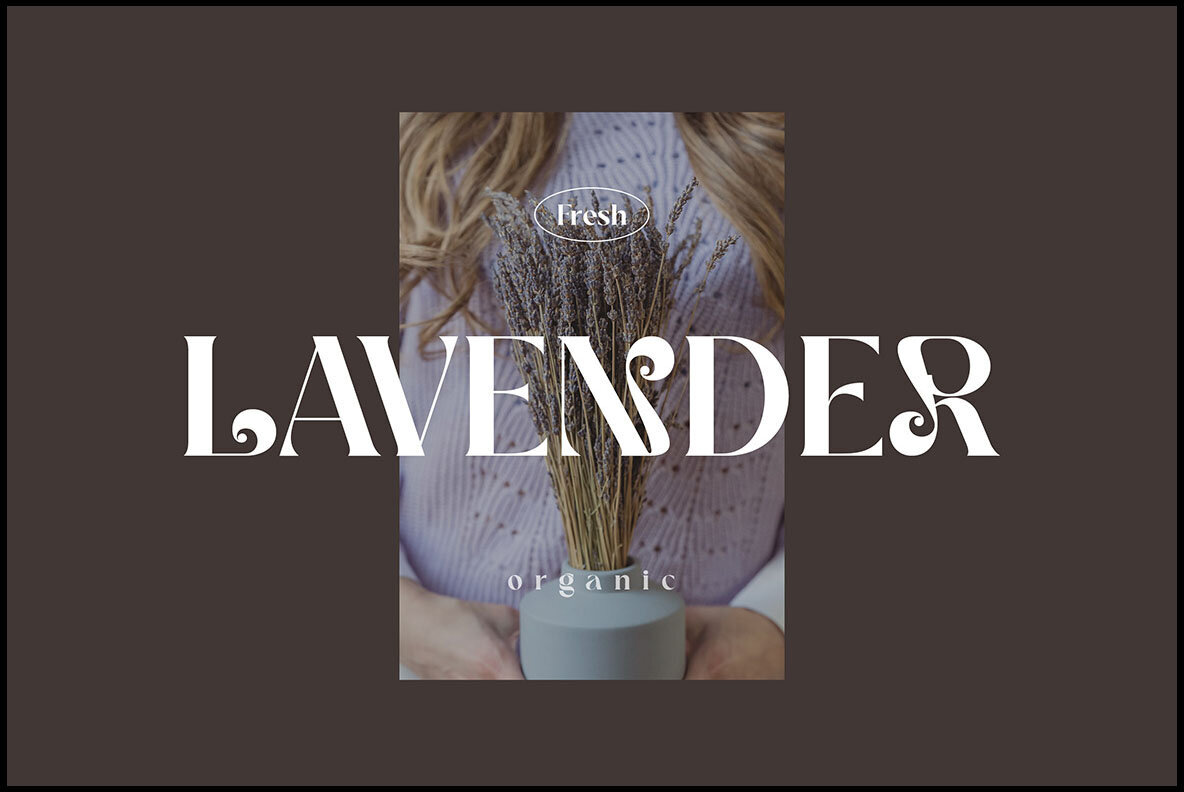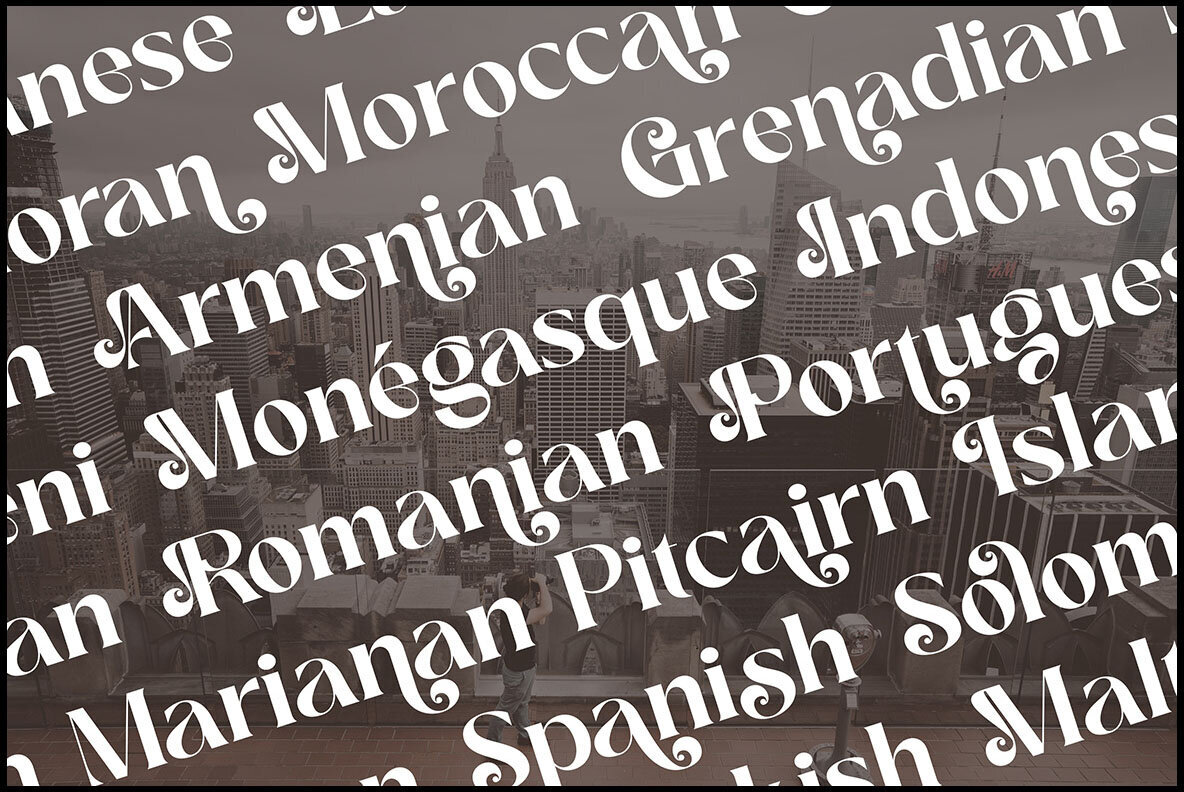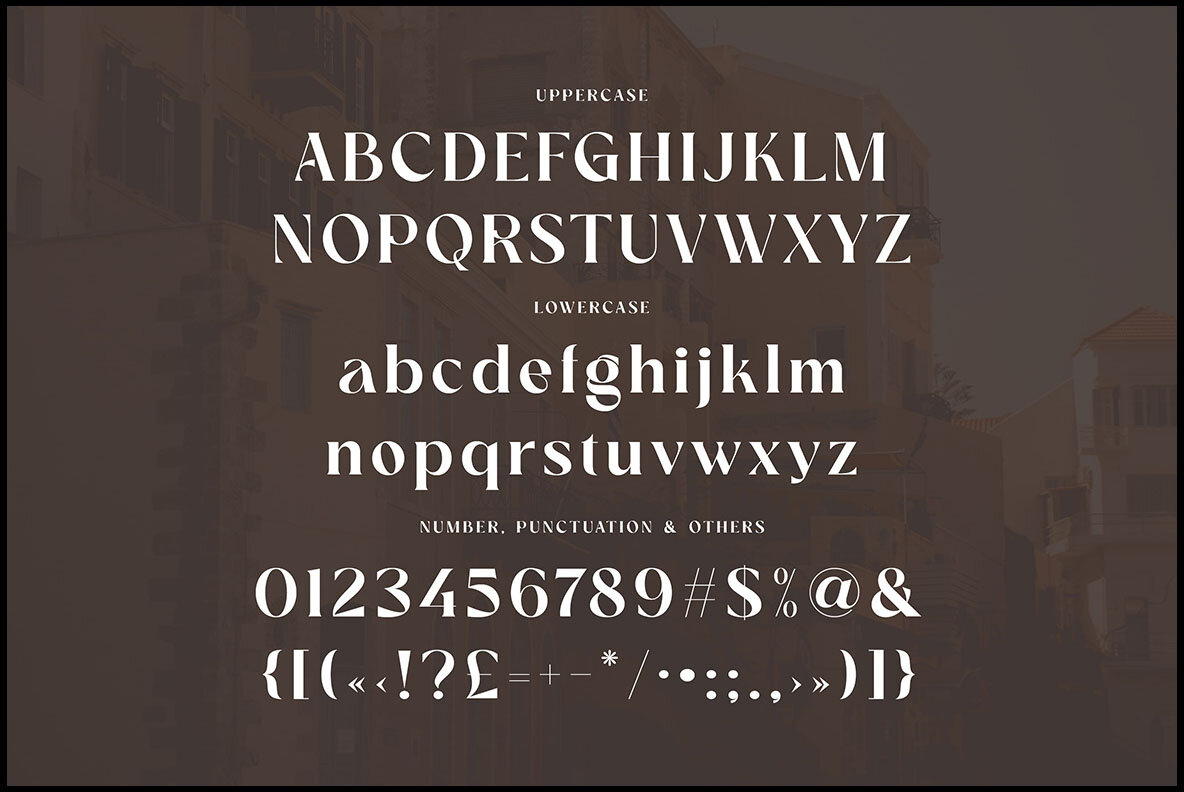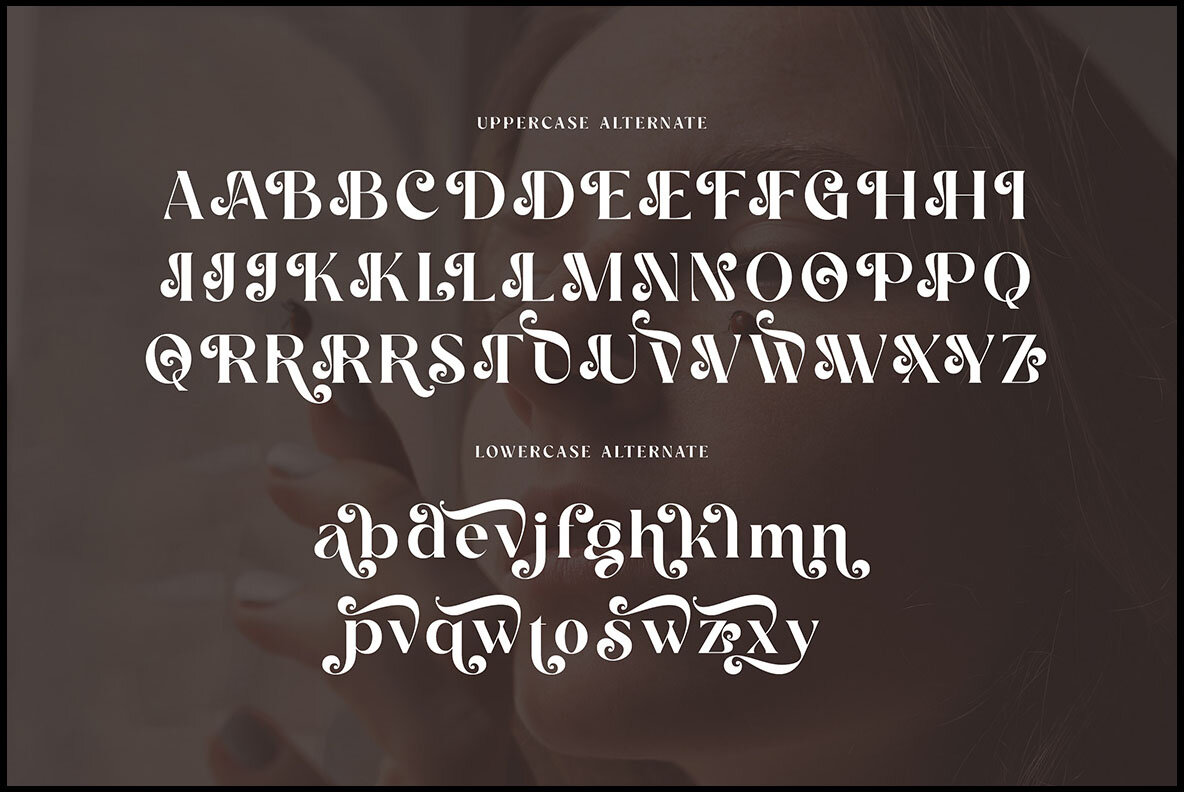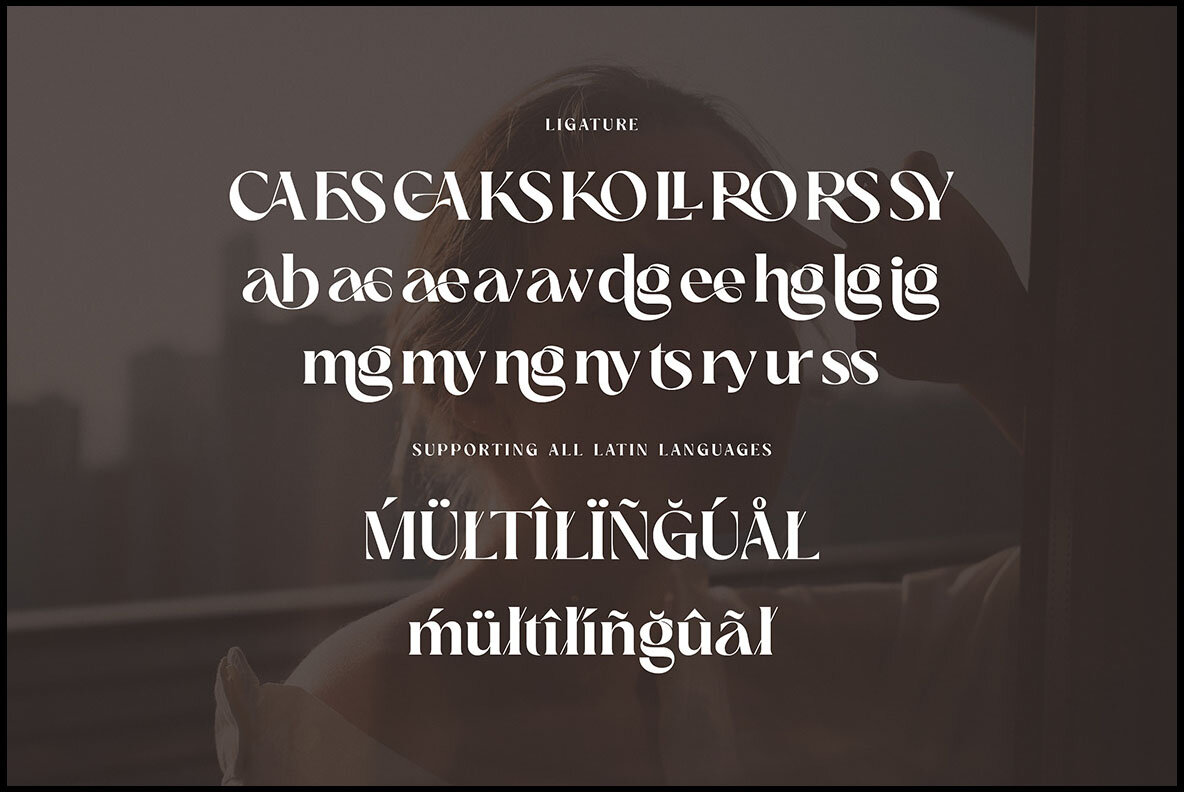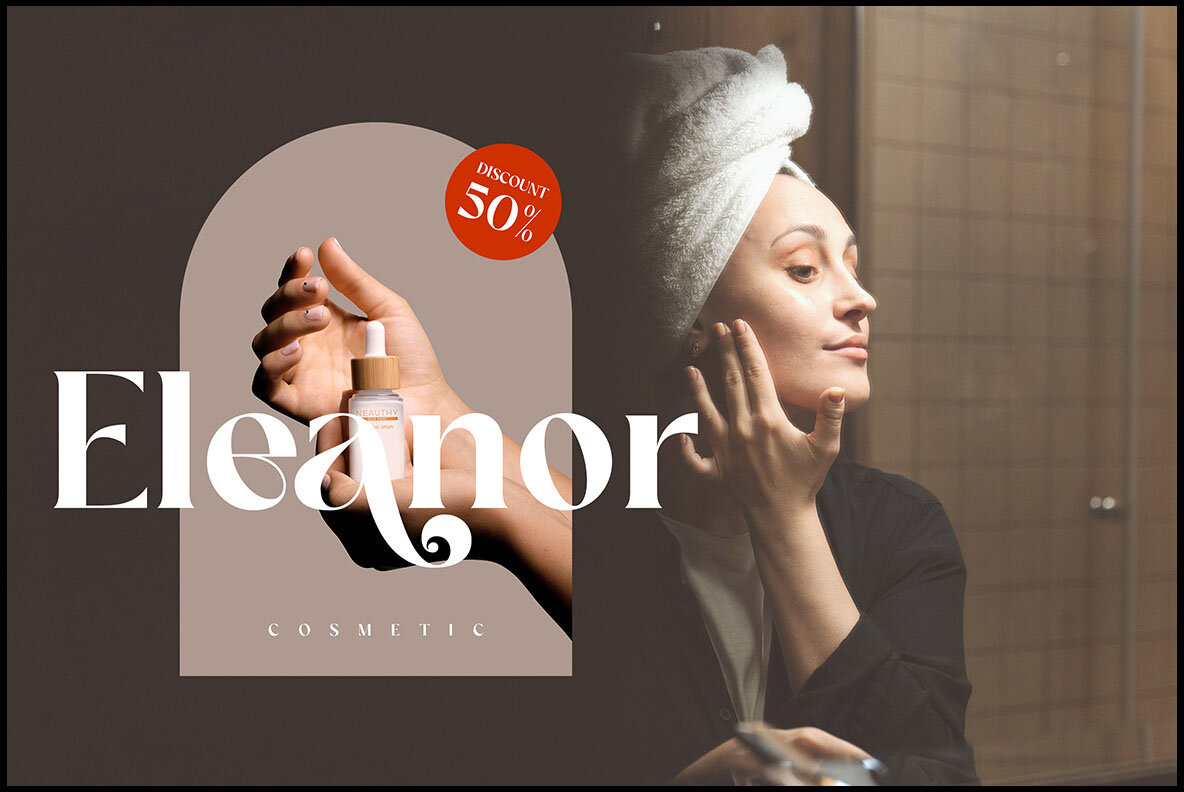
Sandra Kareny Font
Sandra Kareny
Sandra Kareny is a chic and elegant serif font designed to elevate your modern projects. With a luxurious, artistic, and fashionable style, this font is perfect for any branding endeavor. The font's extensive alternates and ligatures allow you to craft unique and original logo designs or website headers.Sandra Kareny: Trendy Serif with Retro Flair